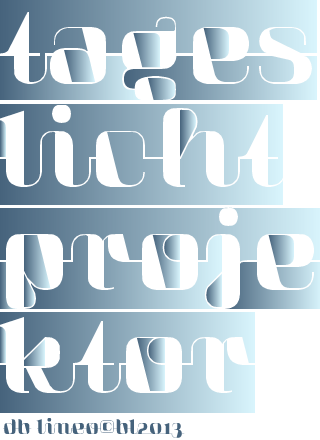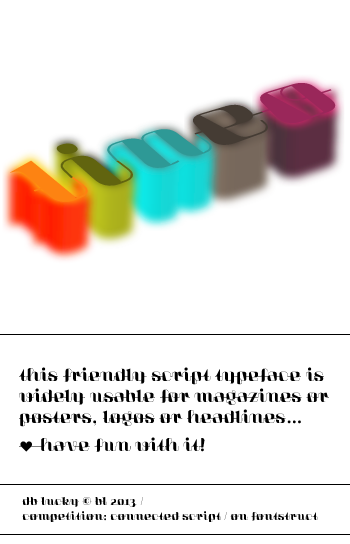
db Lineo
by beate
Beautiful, with clever number connections.
What a unique way to unite each character.
With just a simple horizontal connectors (except some letters)... you made this font so great!
This is one of the best fonts on FS! Lovin' that g, but I think r and z need to be improved.
A masterpiece! 10/10++++++
Smooth contrast, hairline curves, recurring diagonals, subtle connections, comfortably balanced: this one sings!
So cute! Sure winner!
(PS: The stylish and feminine glamour is on the air... BTW, you know the works of Laura Meseguer, a typographer and designer based in Barcelona (Spain)? Her font "Magasin" you'll love, I'm sure!)
smart idea!! beautiful
Wow great design , i love this idea of the connection in the middle of each glyph.
Merci for your comment. Thanks also for your hint to Laura Mesequer, which I don't know. My font is inspired by old illuminated advertising. I am amazed by the hidden links between our works.
Great samples!
Great work. db Lineo would deserve a full length review, as one of the most significant entry to the competition so far. Unfortunately, time is not on my side. I really liked the previous demo picture with 3D effect. 10/10
ich hatte diese Schönheit total übersehen, sehr cool.
Beautiful~